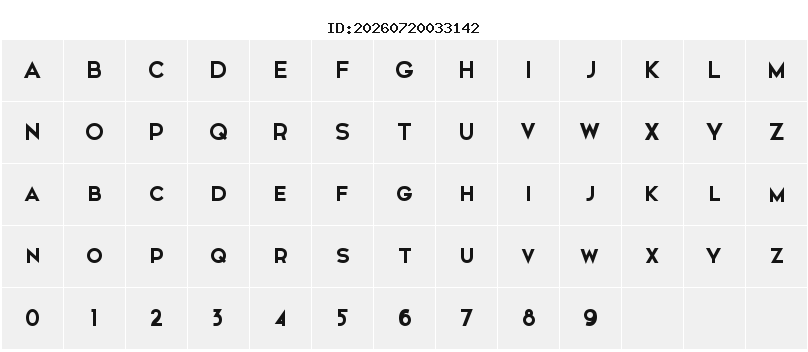
Elkwood Preview
• Font Name: Elkwood
• Full Font Name: Elkwood
• Designer: Dirt2.com
About Elkwood.ttf
Elkwood.ttf is a modern, elegant sans-serif font designed for ultimate readability and visual harmony. Perfect for branding, headlines, web design, and print materials.